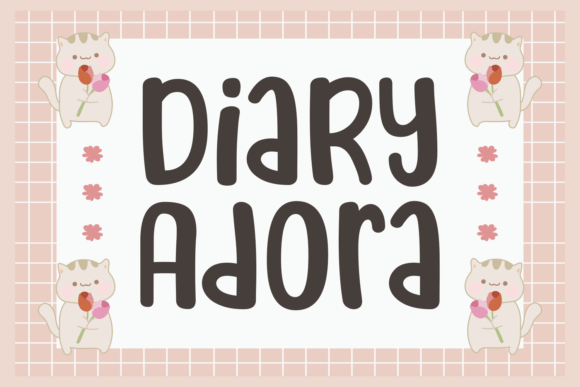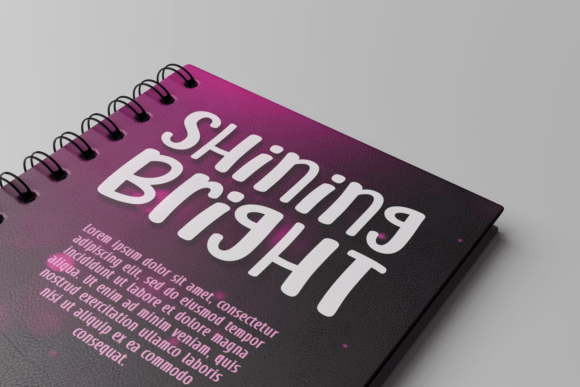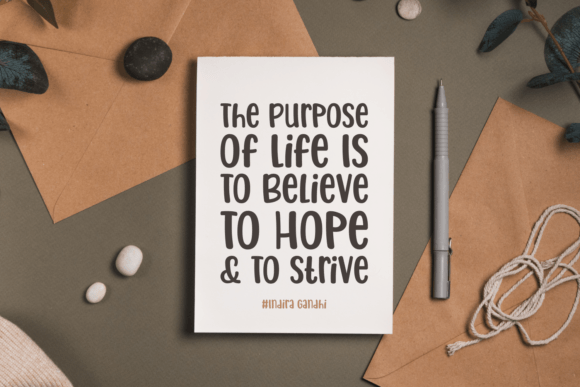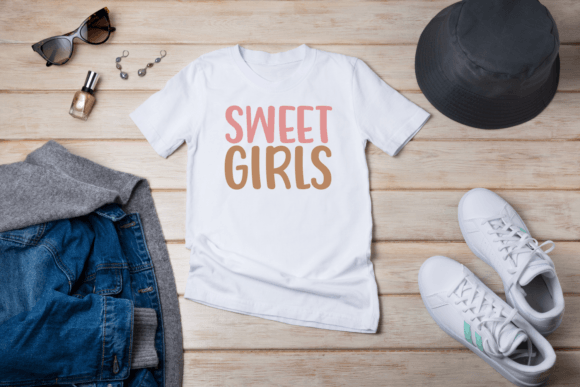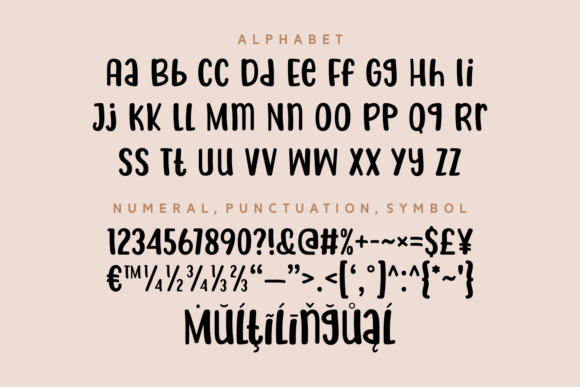
Diary Adora Font
Add Sweet Charm with Diary Adora Font
The Diary Adora font is a cute and charming handwritten script designed to bring warmth and personality to your creative projects. Whether you’re designing mugs, notebooks, apparel, framed quotes, or other personalized items, Diary Adora adds an extra touch of cuteness and elegance to every design.
Perfect for Mugs, Notebooks, Apparel, and More
The Diary Adora font works wonderfully in a variety of applications such as personalized gifts, stationery, apparel designs, home décor, and digital graphics. Its sweet and approachable style makes your projects inviting and memorable.
A Handwritten Script with Playful Personality
Each character in the Diary Adora font is crafted to deliver smooth, expressive strokes that combine readability with a delightful flair. The font balances simplicity with charm, making it suitable for both large headlines and smaller decorative text.
Despite its playful style, the Diary Adorafont maintains excellent readability at all sizes. Whether used for product branding, social media graphics, or detailed designs, it balances clarity with cuteness, making it a versatile choice for many creative projects.
Make Your Designs Shine with Charming Playfulness
Typography plays a key role in defining your character, and Diary Adora adds a warm and charming spirit. If you want to elevate your projects with a cute and playful handwritten script, download the Diary Adorafont today and create visuals.